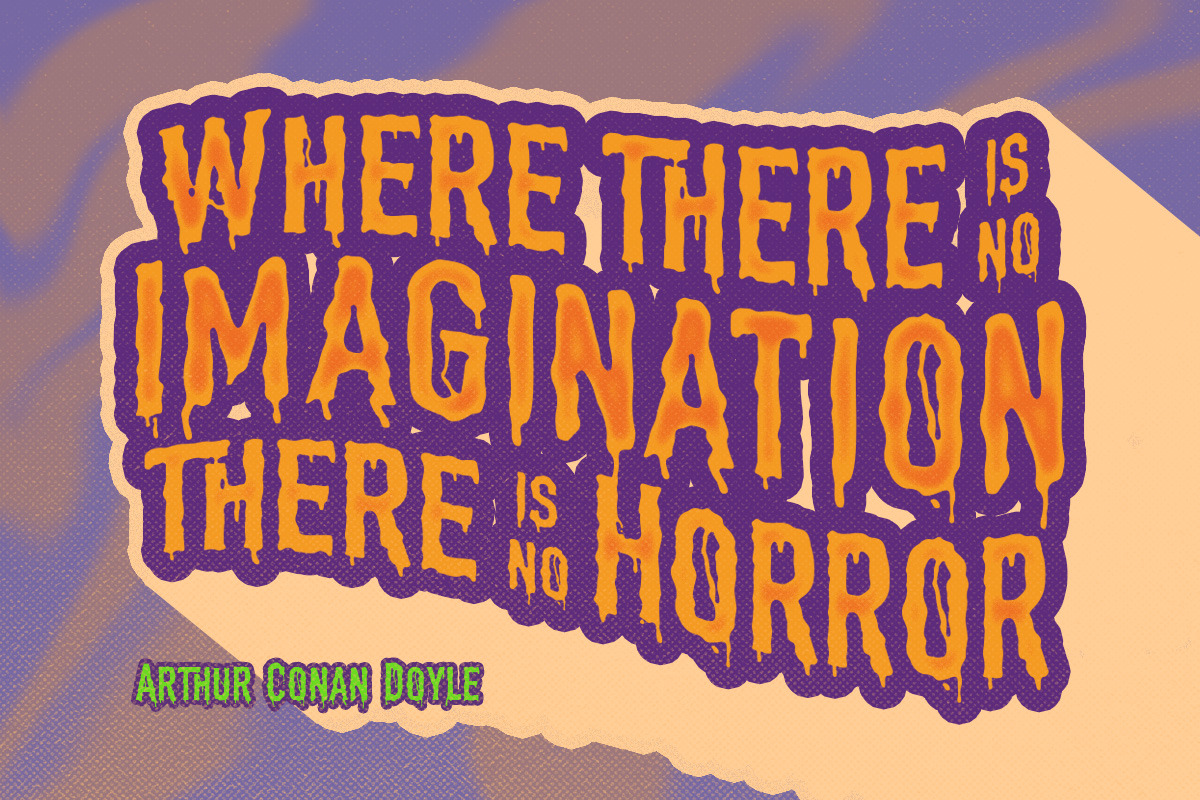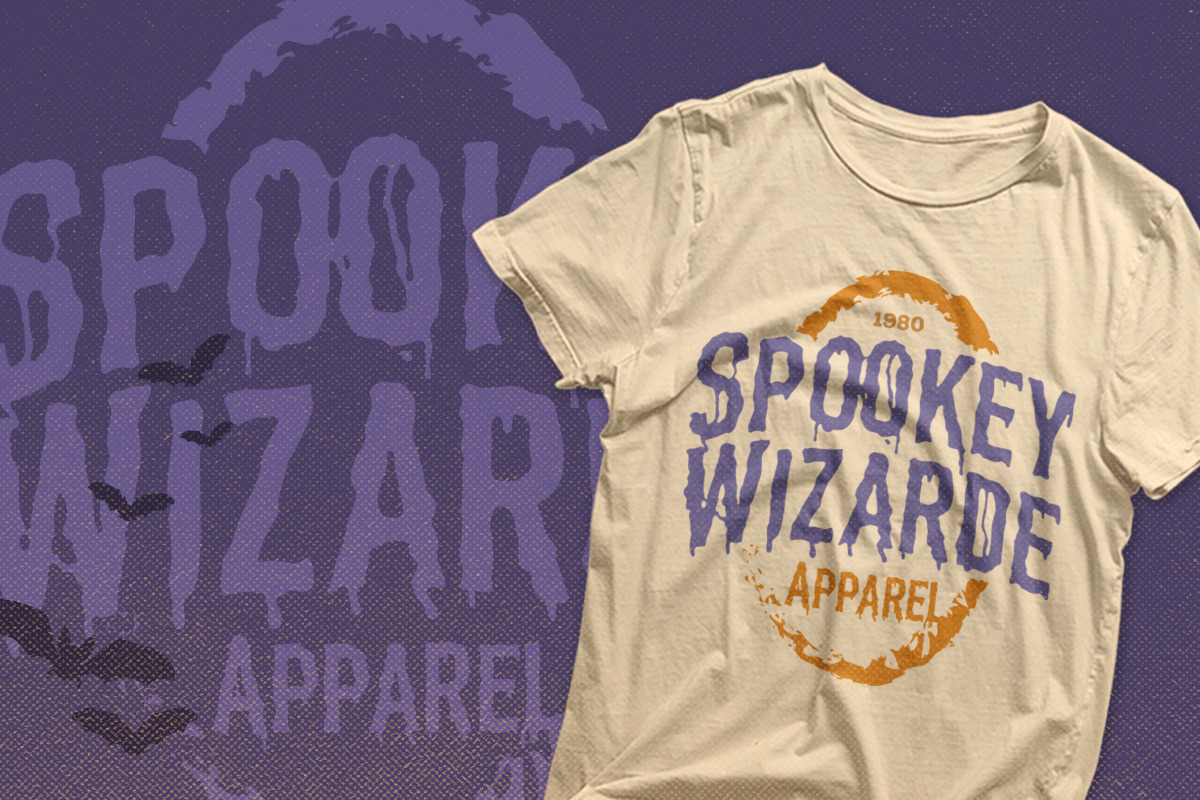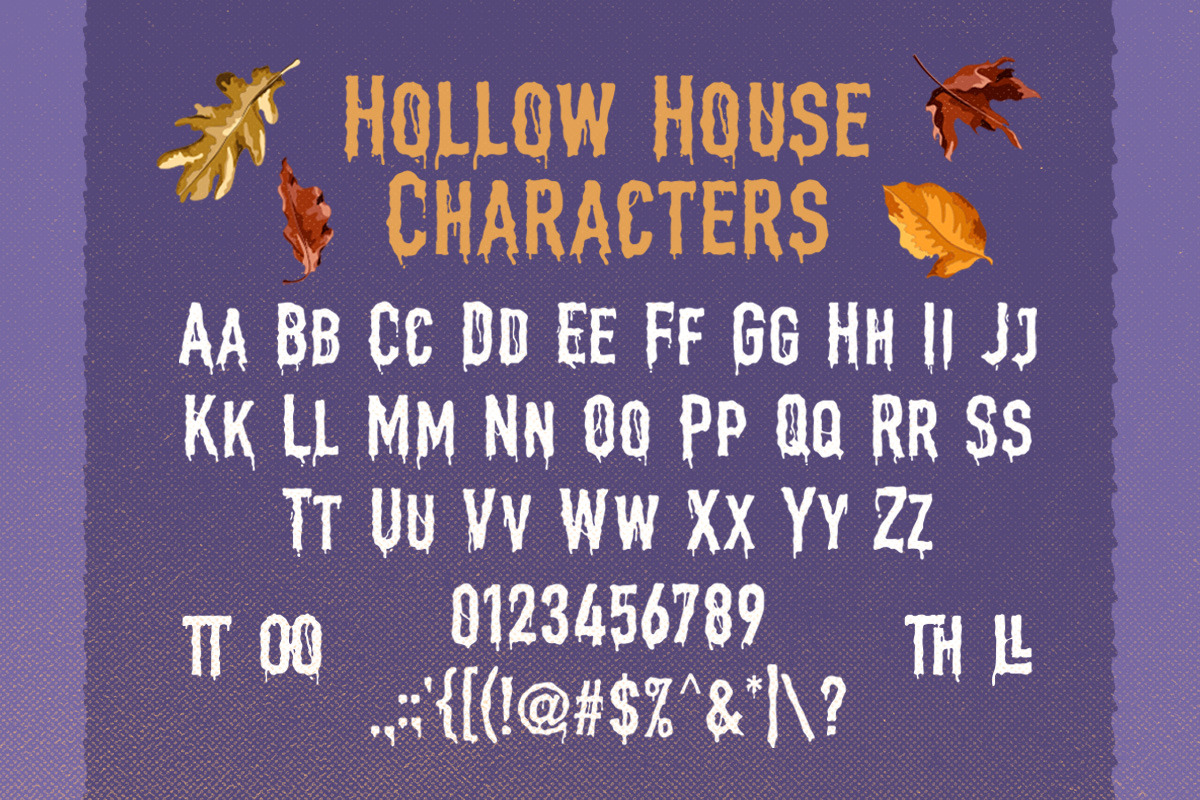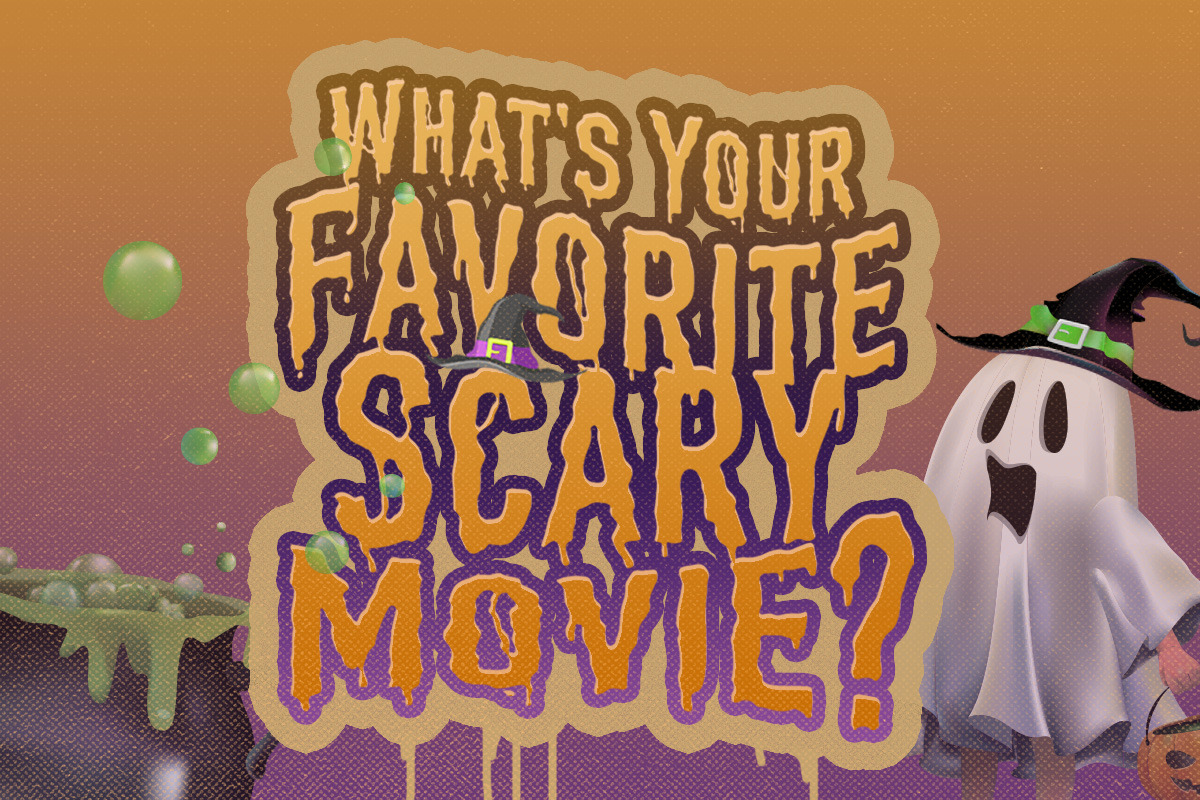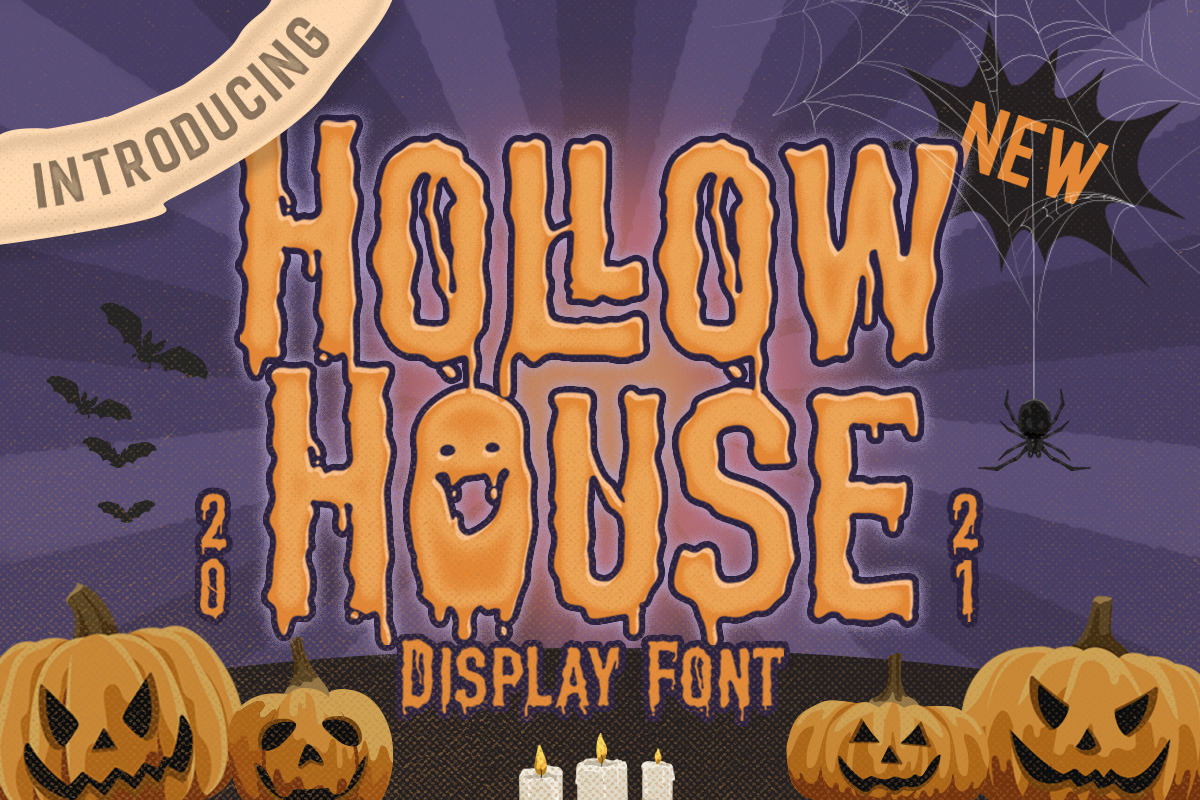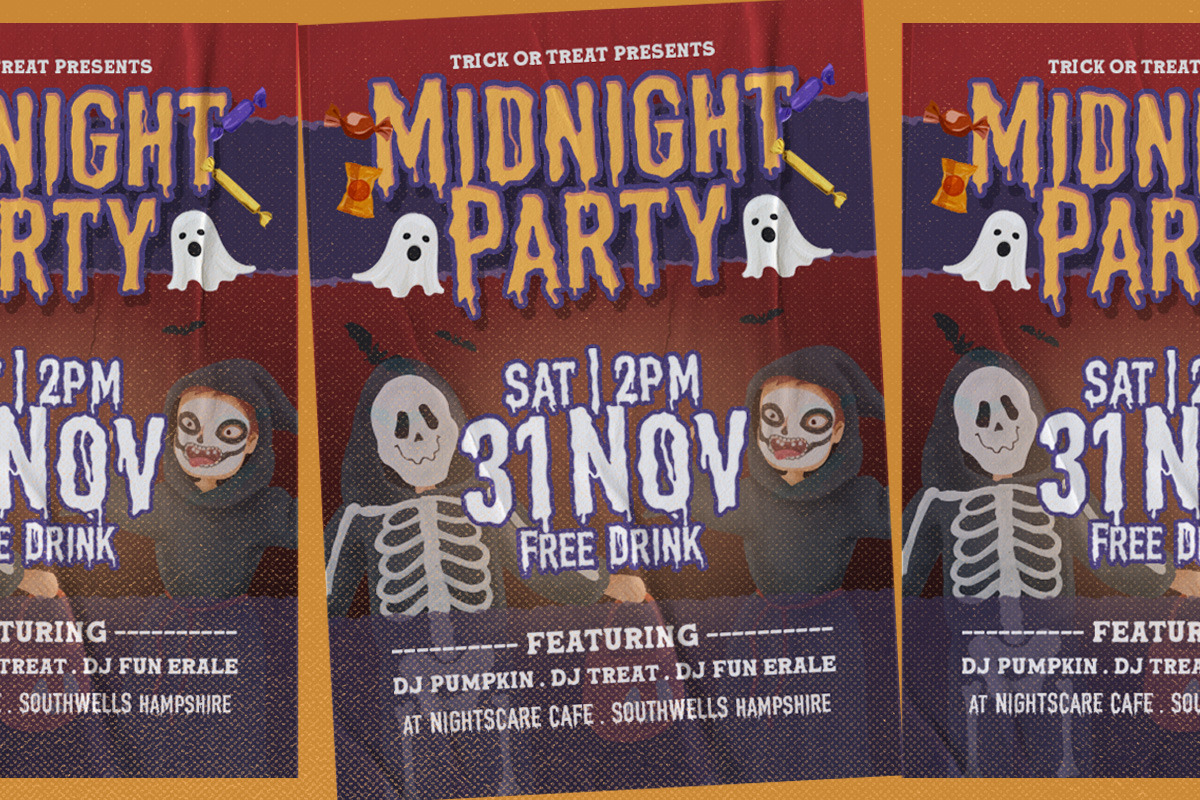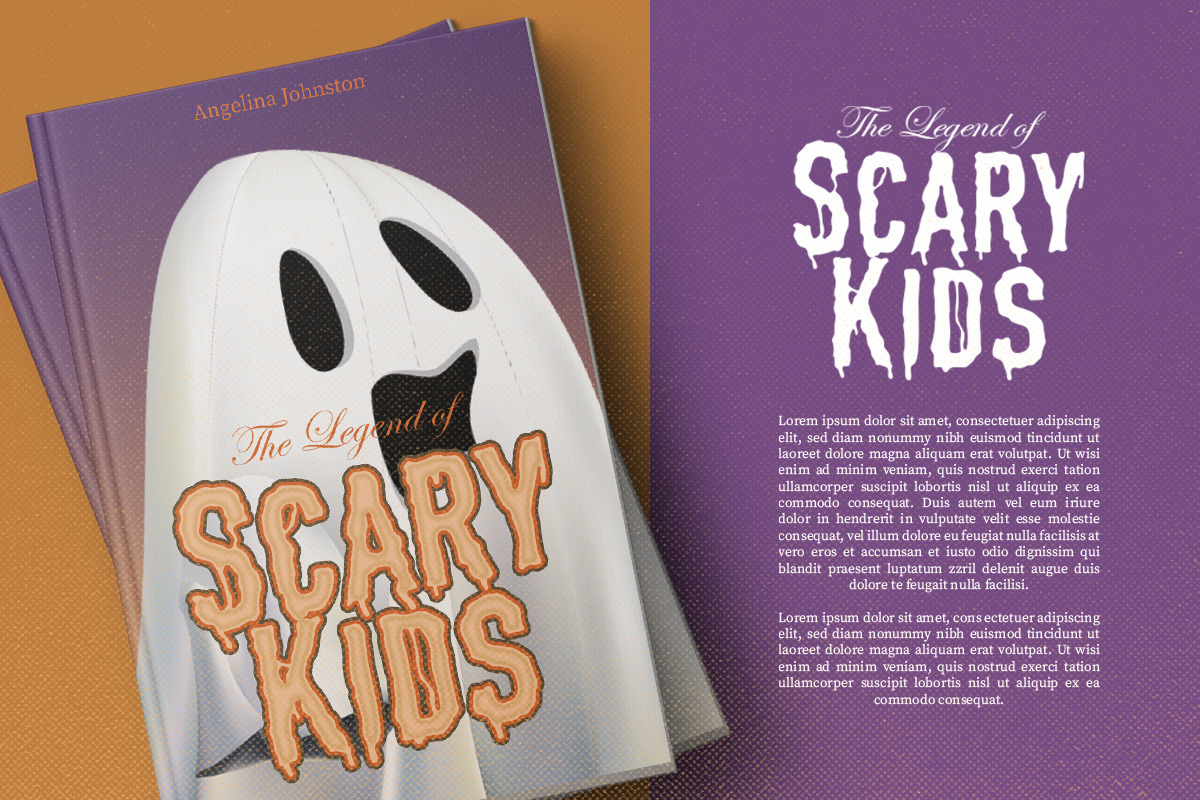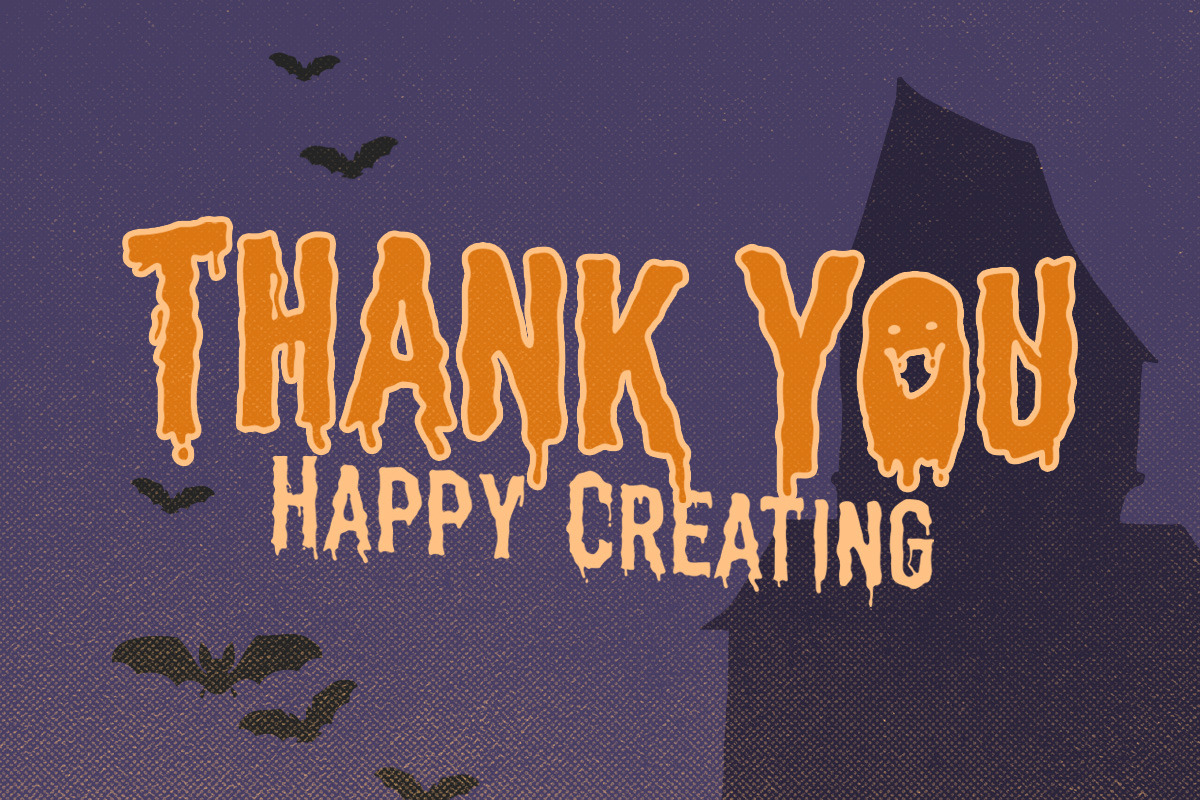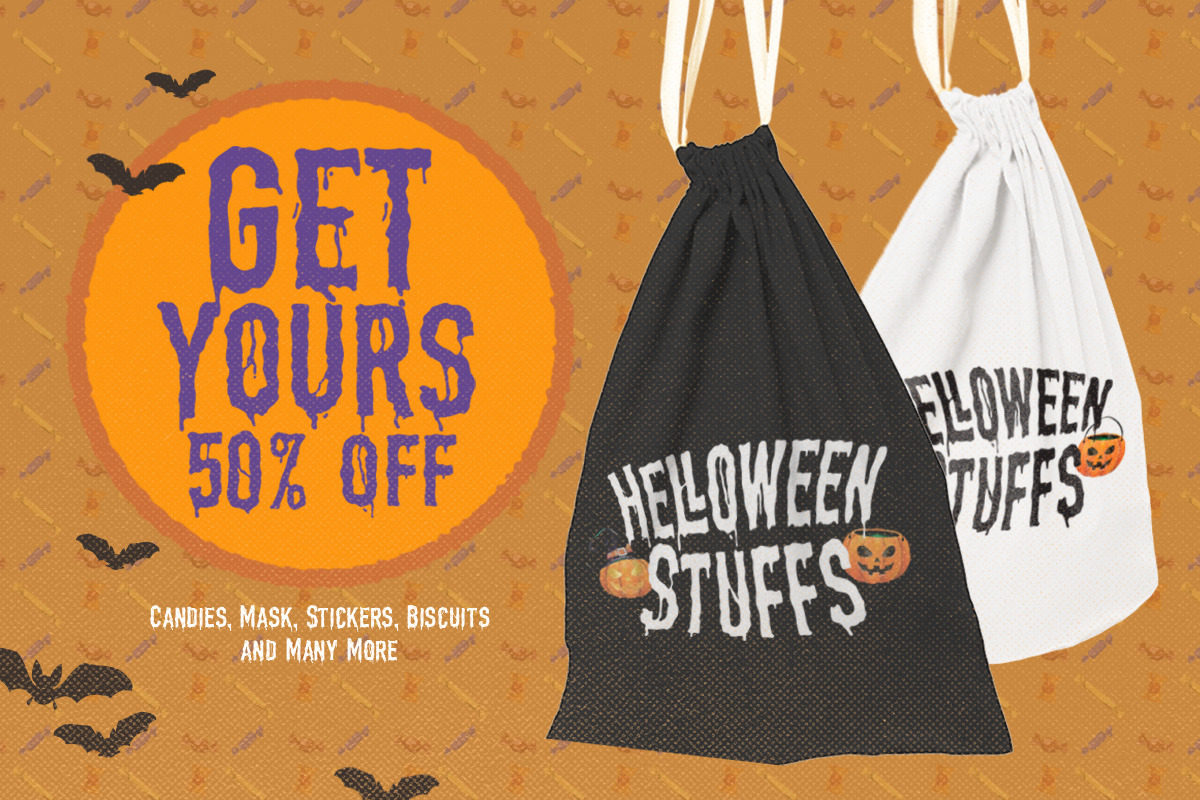
Hollow House - Scary Font
Hollow House is a font which will looks great in dark / horror / spooky / scary theme. This type of font perfectly made to be applied especially in movies or storybook children which is need a standout font, and the other various formal forms such as invitations, labels, logos, magazines, books, greeting / wedding cards, packaging, fashion, make up, stationery, novels, labels or any type of advertising purpose.
- alternates